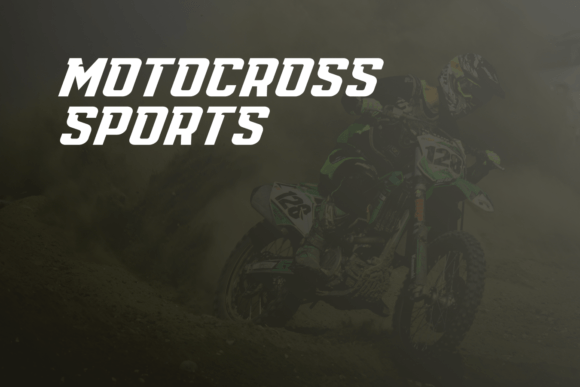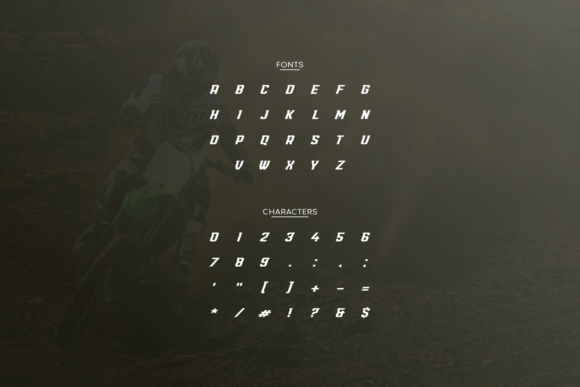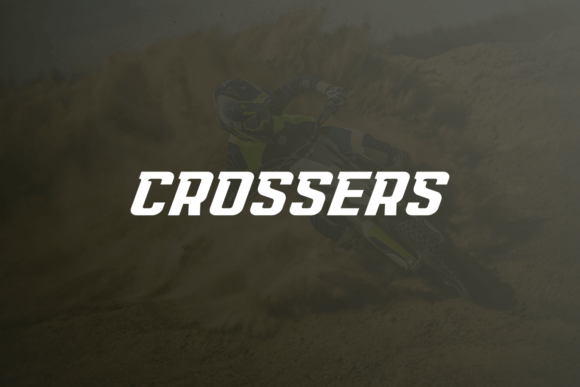
Introduction to Rosacas Font
Have you ever stared at a blank page, waiting for inspiration to strike, only to have it hit you like a perfectly placed free kick in a soccer game? That’s what happened to me when I first laid eyes on the Rosacas Font. Its modern, sports-themed sans serif design immediately caught my attention, and I knew I had to share it with the world.
For designers, finding the perfect font can be a game-changer. It’s the difference between a good design and a great one. And that’s exactly what Rosacas Font offers – a unique touch that can elevate any creative project from ordinary to extraordinary. Whether you’re working on a web design, business card, or any other project, this font is sure to make a statement.
Key Features of Rosacas Font
- High-quality design: Rosacas Font boasts a unique, elegant style suitable for various creative projects and design needs.
- Unique characteristics: The Rosacas Font features intricate details, making it ideal for creative projects that require a touch of sophistication.
- Design versatility: This font is suitable for a wide range of design applications, from print materials to digital projects, making it a valuable design resource.
Honest Review: Rosacas Font
As a designer, I’m always on the lookout for high-quality design resources to elevate my creative projects. Recently, I stumbled upon the Rosacas Font, and I’m excited to share my honest review.
- ✨ The font’s unique, elegant design makes it perfect for a variety of creative projects, from wedding invitations to branding materials.
- ⚠️ The font’s character set is limited, which may not be ideal for projects that require a wide range of characters.
- ⚠️ The font’s weight and style options are somewhat limited, which may restrict its versatility.
Overall, I’m impressed with the Rosacas Font’s potential, but its limitations hold it back from being a top-tier design resource. Nevertheless, it’s still a great option for designers looking for a free, high-quality font to add some elegance to their projects.
Tips for Getting the Most Out of Rosacas Font
Some tips for getting the most out of Rosacas Font include using it for creative projects that require a high quality and unique font, experimenting with different font sizes and styles, and combining it with other design resources for a professional look.
Common use cases for Rosacas Font include creating logos, branding materials, and marketing materials, as well as designing websites, social media graphics, and other digital content.